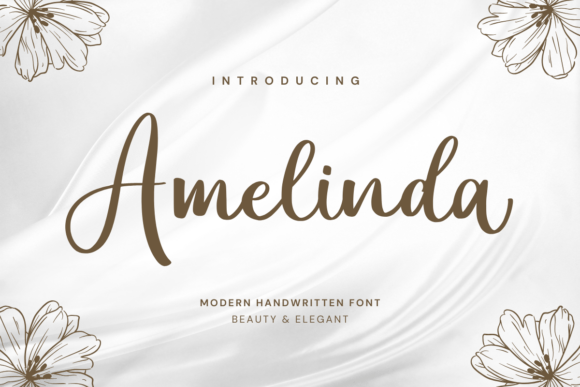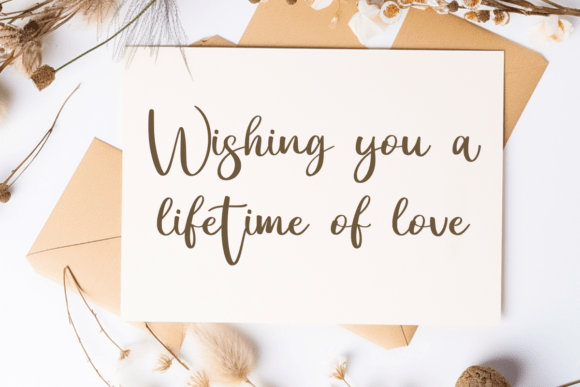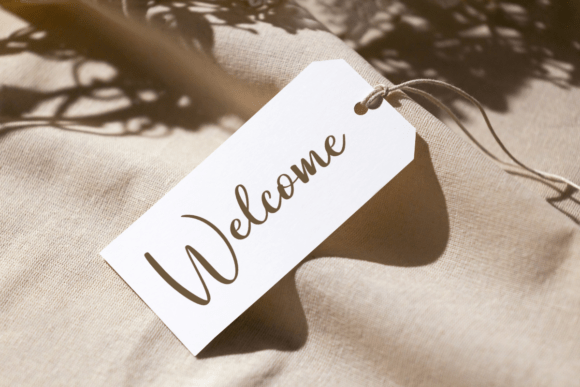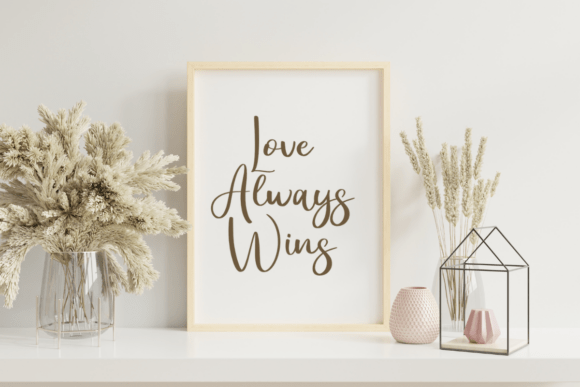
Amelinda Font: Elegant Handwritten Script for Wedding & Logo Design
About the Amelinda Font
Step up your design game with Amelinda Font, a font that exudes confidence and style. Amelinda is a modern handwritten font that blends elegance with simplicity, perfect for designs that need a graceful and contemporary touch. Its smooth curves and stylish flow make it ideal for wedding stationery, fashion branding, social media graphics, and logos. With a soft and feminine aesthetic, Amelinda brings a sense of beauty and charm to any project.
Amelinda’s soft, feminine personality makes it a strong choice for branding projects related to beauty, fashion, or wedding-related businesses. It excels in short-form applications like logos, headlines, and social media posts, where its elegant curves shine. However, its handwritten nature makes it less suitable for large blocks of text or UI elements; readability suffers in extended use.
Pairing Amelinda with a clean sans-serif like Lato or Open Sans provides a strong contrast, grounding its delicate script. For a more luxurious feel, consider a classic serif like Garamond or a geometric sans-serif such as Montserrat. These pairings offer visual balance and prevent the design from feeling overly whimsical.
The font’s overall mood is sophisticated yet approachable, conveying a sense of refined charm without being overly formal. This makes it versatile for a range of projects needing a touch of elegance and personality.
Amelinda Font Usage Examples
Amelinda Font Example